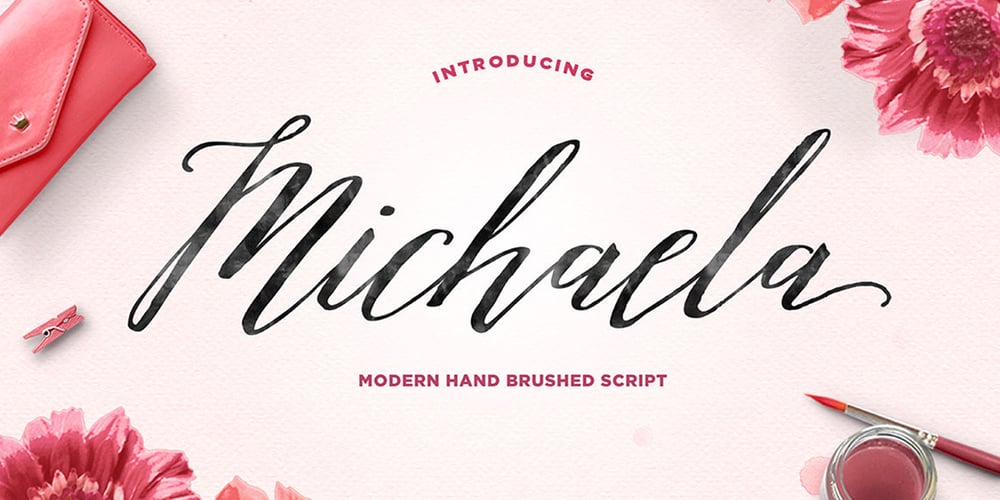
Michaela Brush Script Font Family was designed by Mauli Zari and published by Dhan Studio. Michaela Brush Script contains 1 styles and family package options. Michaela Script is modern hand brushed script with an organic, fun and dancing baseline. It includes different alternates and swashes for all lowercase characters. It features 328 glyphs, with OpenType features and stylistic sets, as well as international support for most Western Languages. This fonts can be used for various purposes such as headings, signature, logos, wedding invitations, t-shirts, letterhead, signage, labels, news, posters, badges, and more. Michaela Script can be used for both Commercial and Personal projects.